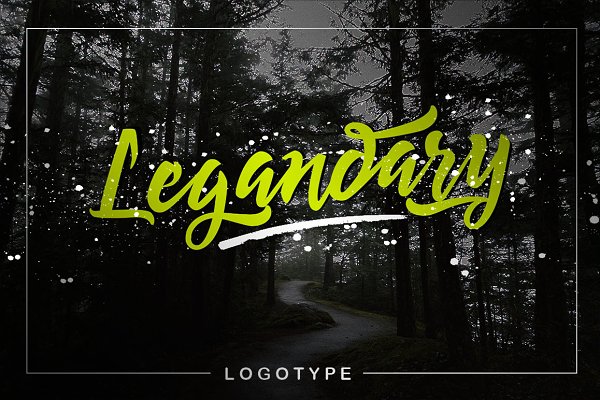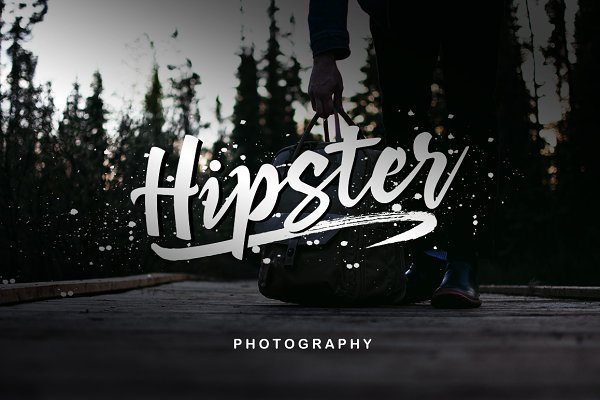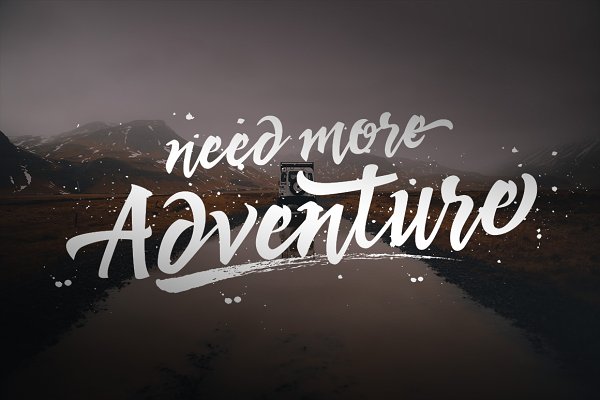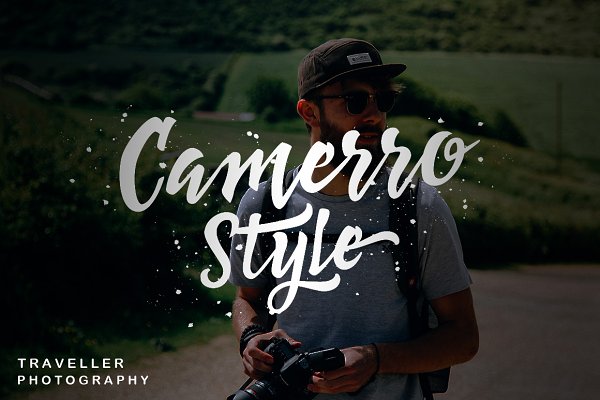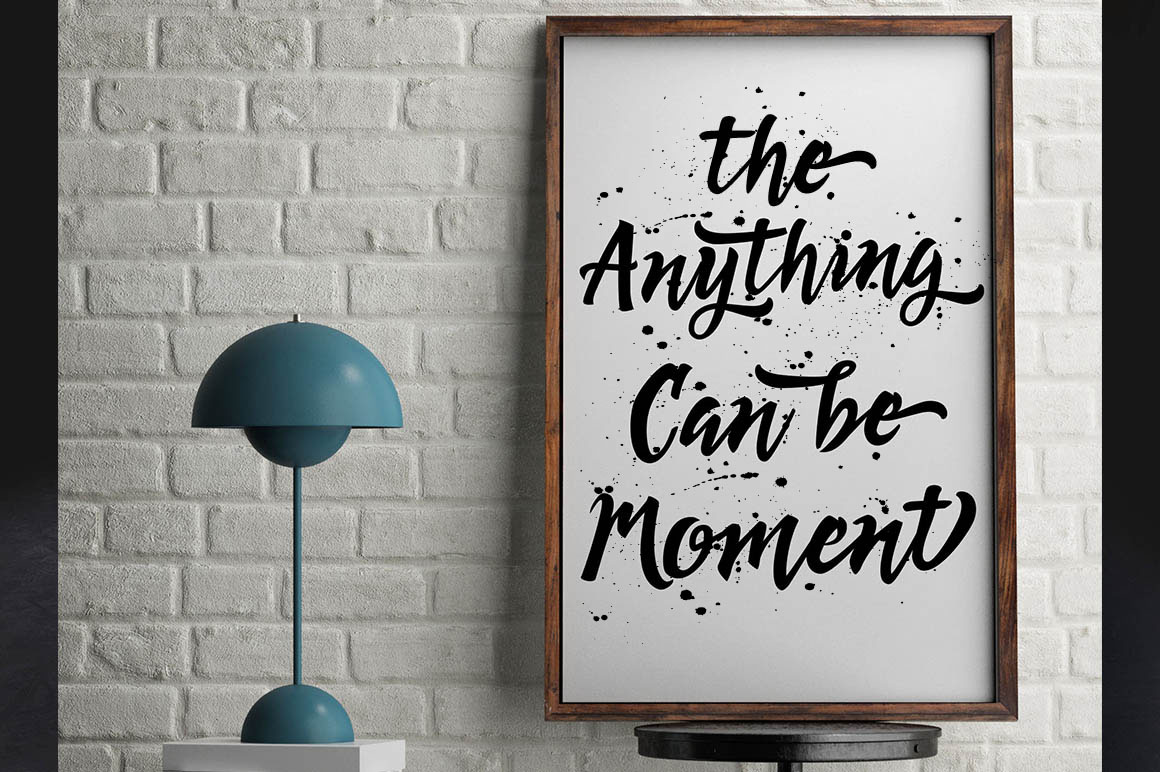
Redmirable Font
About Redmirable Font
Redmirable is a remarkably versatile script, and can be used for a large range of project types.  With some splatter texture and grain, Redmirable is an eye-catching font to be used for your boldest creative projects.